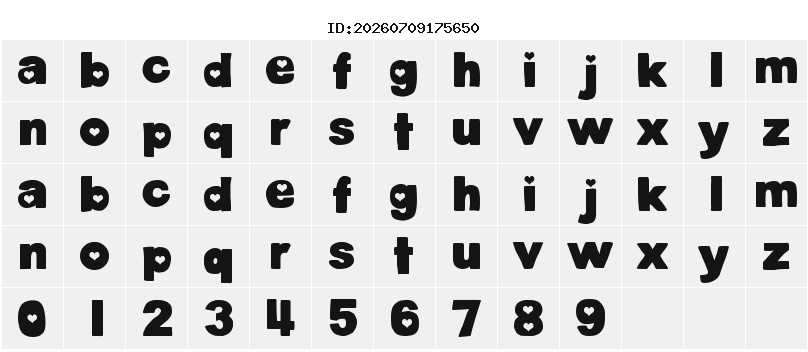
DJB Cutouts-Hearts Preview
• Font Name: DJB Cutouts-Hearts
• Font Style: Gras
• Font ID: DJB Cutouts-Hearts Bold:Version 1.00
• Full Font Name: DJB Cutouts-Hearts Bold
• Version: Version 1.00 July 29, 2015, initial release
• PostScript Name: DJBCutouts-Hearts-Bold
• Designer: Darcy Baldwin (djbfontography)
About DJB Cutouts-Hearts.ttf
DJB Cutouts-Hearts.ttf is a modern, elegant sans-serif font designed for ultimate readability and visual harmony. Perfect for branding, headlines, web design, and print materials.